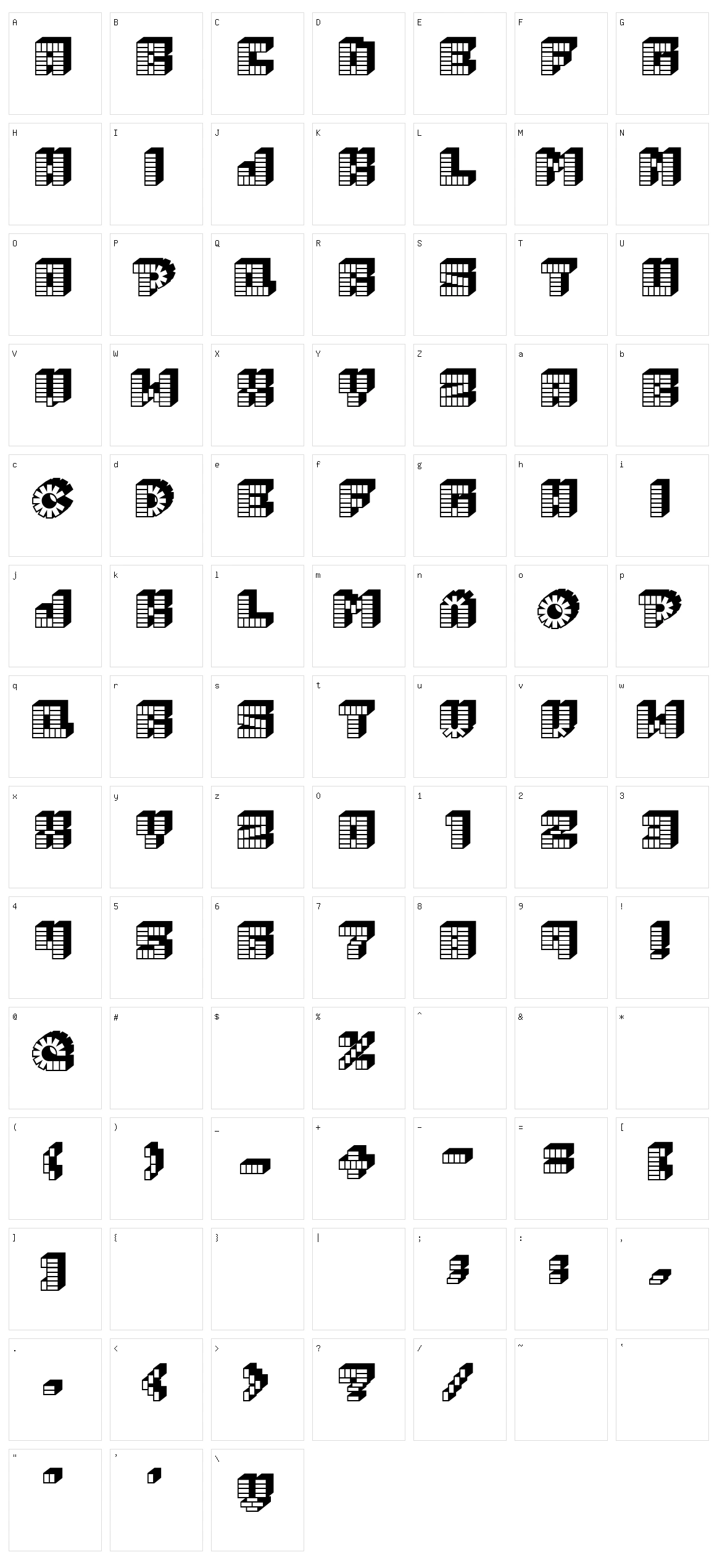
Pez
Designed by: BRIDGEco
Category: Decorative
¡‚܂Ŕz•z‚µ‚Ä‚¢‚½PEZ font‚ð
‚æ‚èƒIƒŠƒWƒiƒ‹‚É’‰ŽÀ‚ɍì‚è‚È‚¨‚µA
PEZ_font(ver2.0)‚Æ‚µ‚Ä”z•z‚µ‚Ü‚µ‚½B
‚Ù‚Ú‘S‚Ă̕¶Žš‚ðì‚è•Ï‚¦‚Ü‚µ‚½‚̂ŁA
ver1.0‚Ƃ͑S‚­ˆá‚Á‚½ƒtƒHƒ“ƒg‚Æ‚µ‚Ä‚¨Žg‚¢‰º‚³‚¢B
‚Ü‚½A[C,D,N,O,U,V]‚ɂ‚¢‚ẮA
¬•¶Žš‘Å‚¿‚ł͊ۂÁ‚±‚­A
‘å•¶Žš‘Å‚¿‚ł͊p‚΂Á‚½ƒfƒUƒCƒ“‚ɂȂÁ‚Ä‚¢‚Ü‚·B
—p“r‚É‚æ‚Á‚ÄŽ©—R‚ÉŽg‚¢•ª‚¯‚Ă݂Ă­‚¾‚³‚¢B